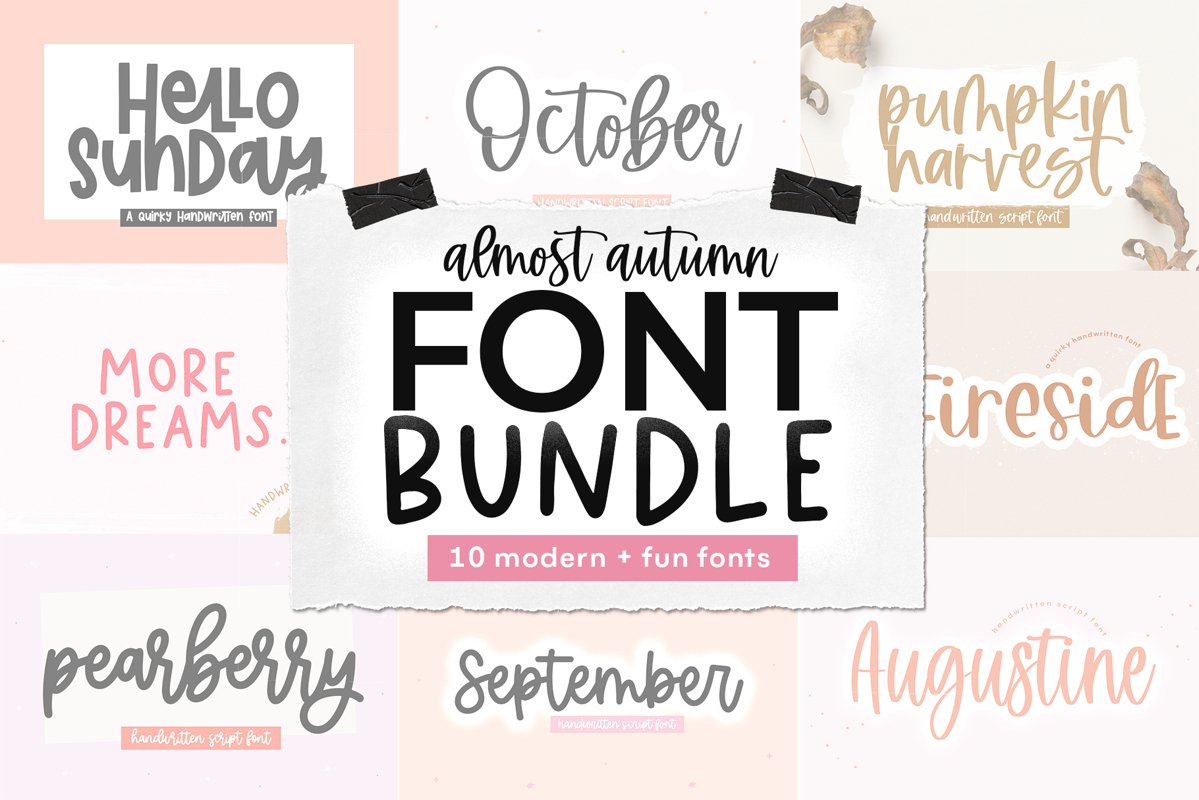
Font Bundle - Handwritten Fonts for Crafters - Almost Autumn
ALMOST AUTUMN HANDWRITTEN FONT BUNDLE
Perfect fonts to get a start on all of your fall/autumn crafts!
Fonts Included:
September
October
Hello Sunday
Pearberry
More Dreams
Pumpkin Harvest
Augustine
Moonlight
Pink Daisy
Fireside